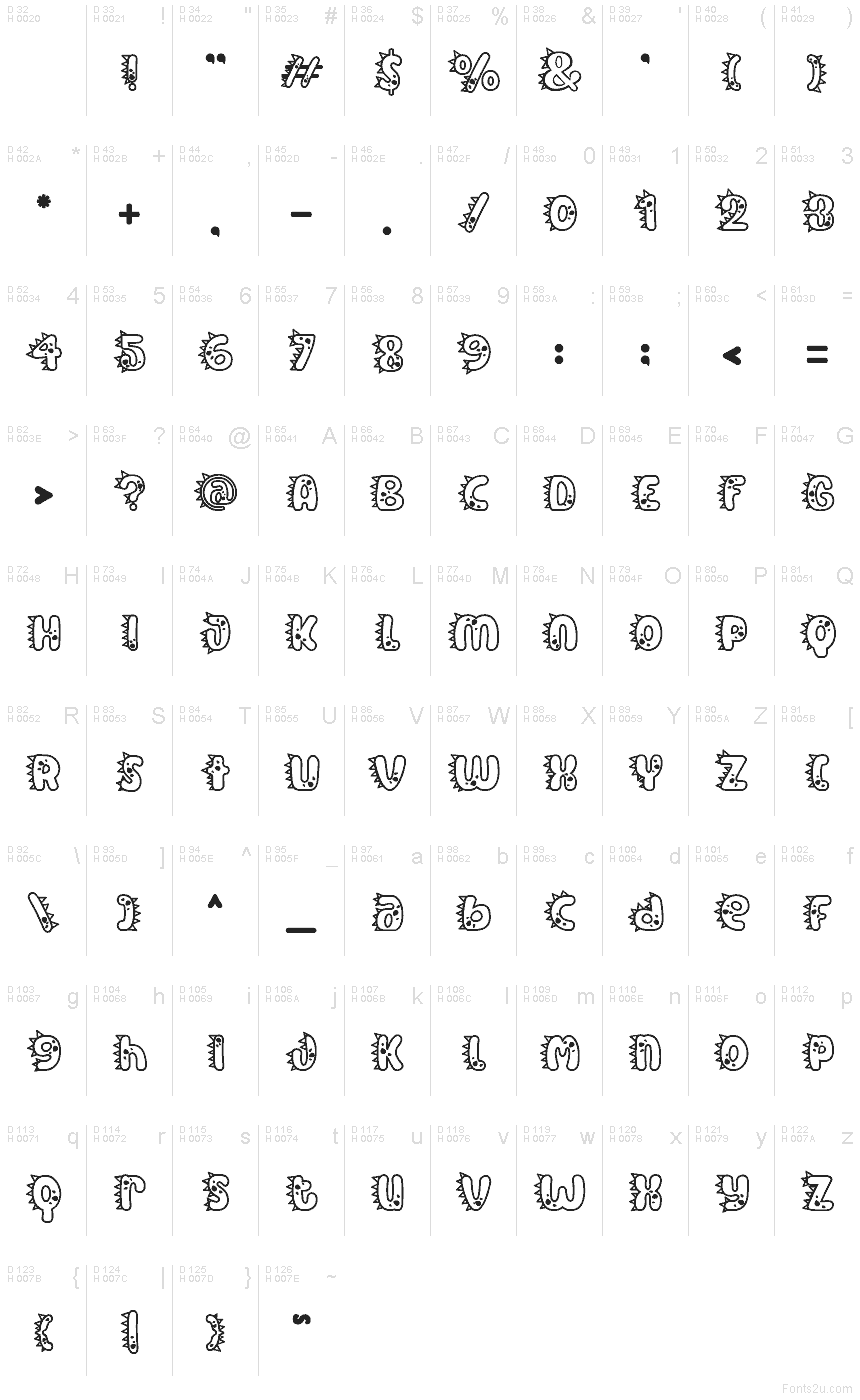
Monster Mash font by PutraCetol Studio is a bold, decorative display font inspired by the whacky namesake Halloween song from the 1960s. The chaotic yet stylish typeface combines comical characters with dreadful serifs and spooky-edged lines with an eerie twist to compose an iconic Gothic horror look.